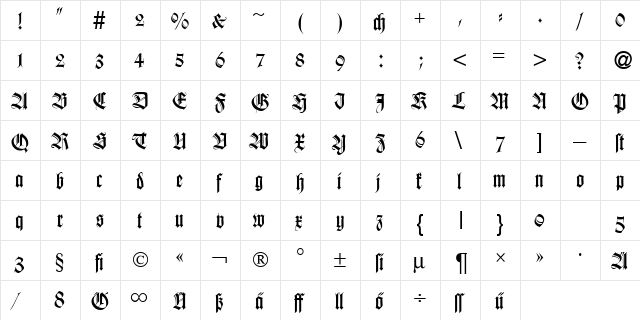
WildorDB Normal
Design Context for WildorDB Typeface
WildorDB takes a measured approach to typography — its balanced proportions and neutral character make it a reliable workhorse for both digital and print work.